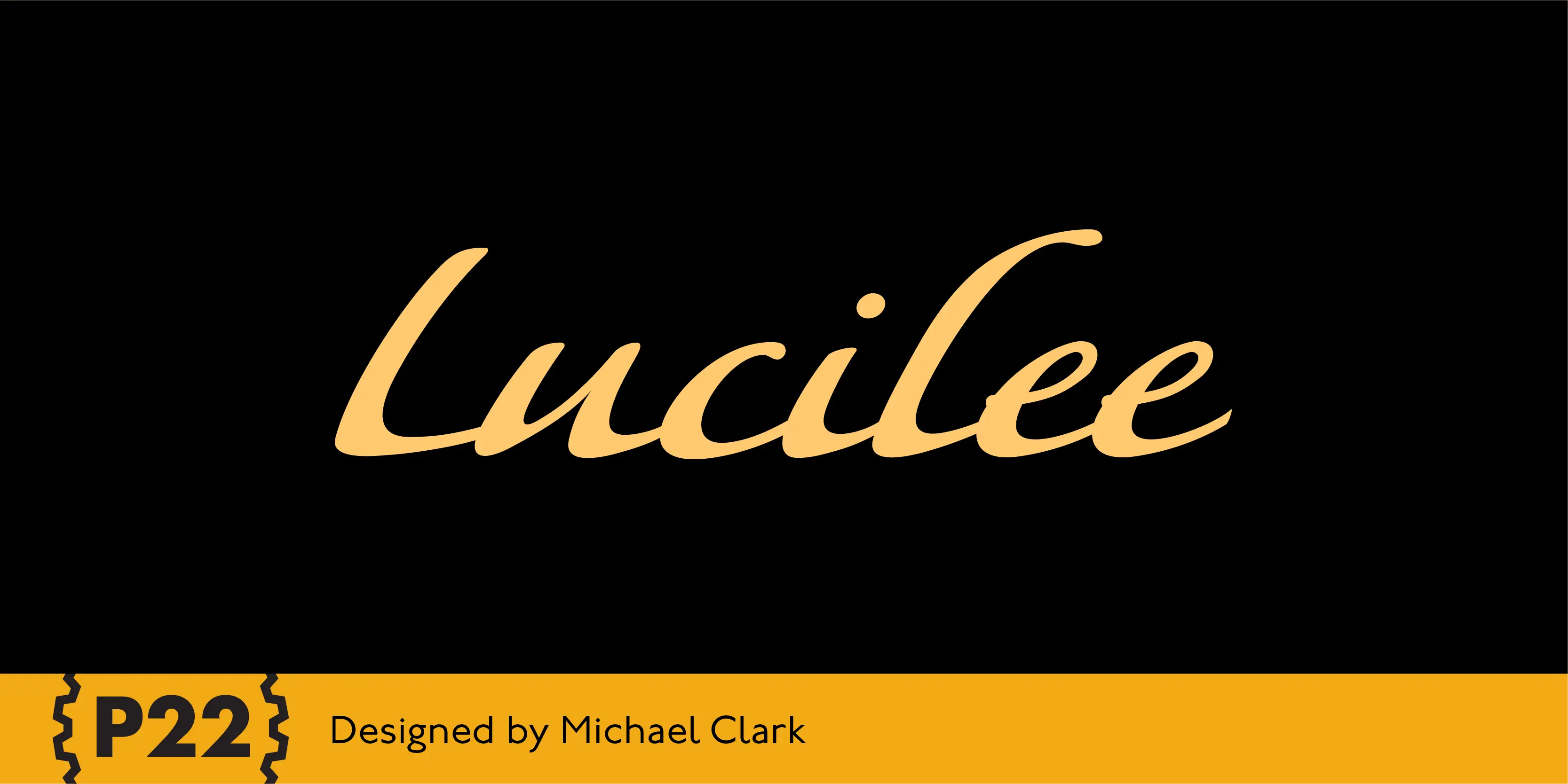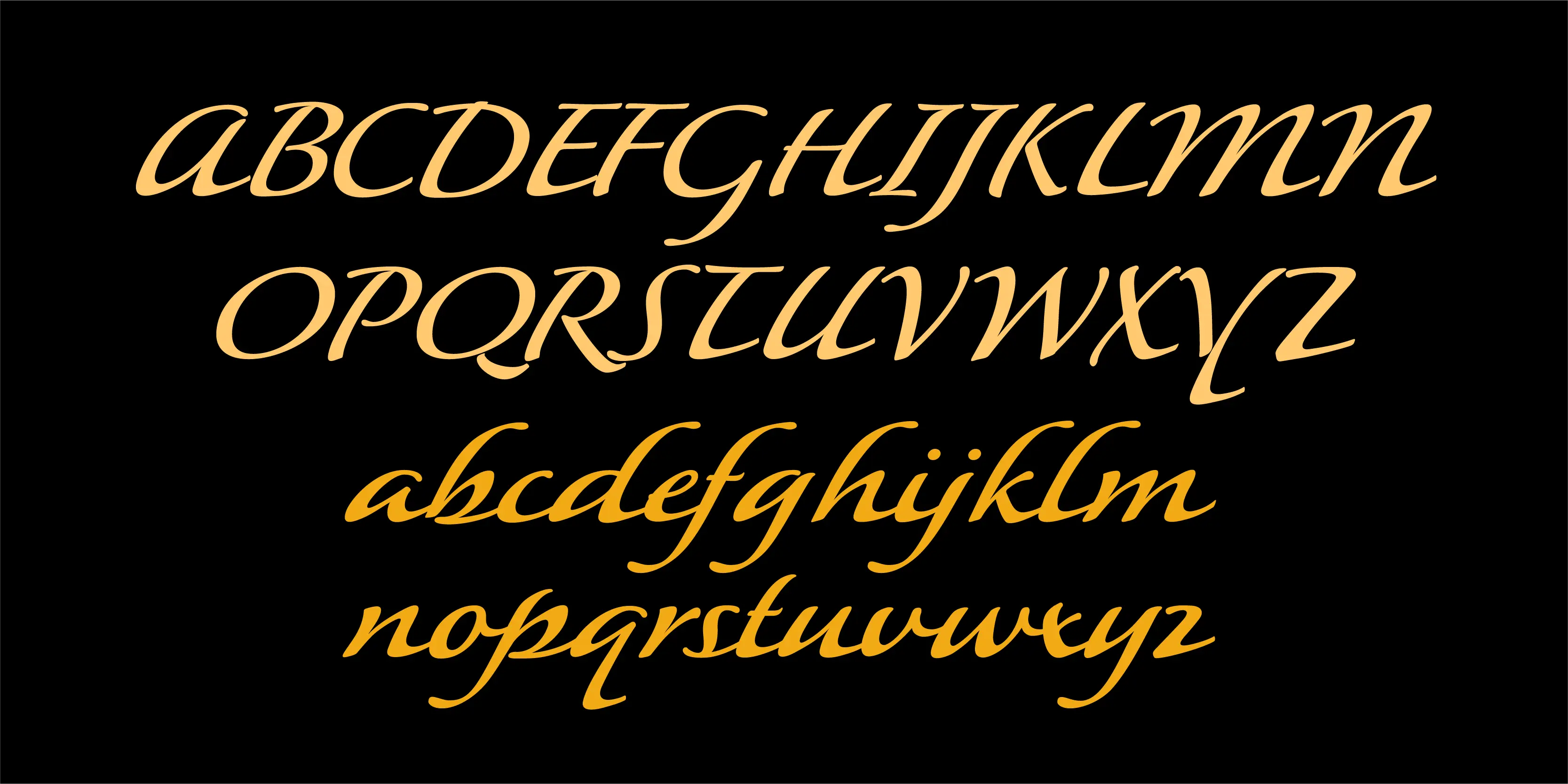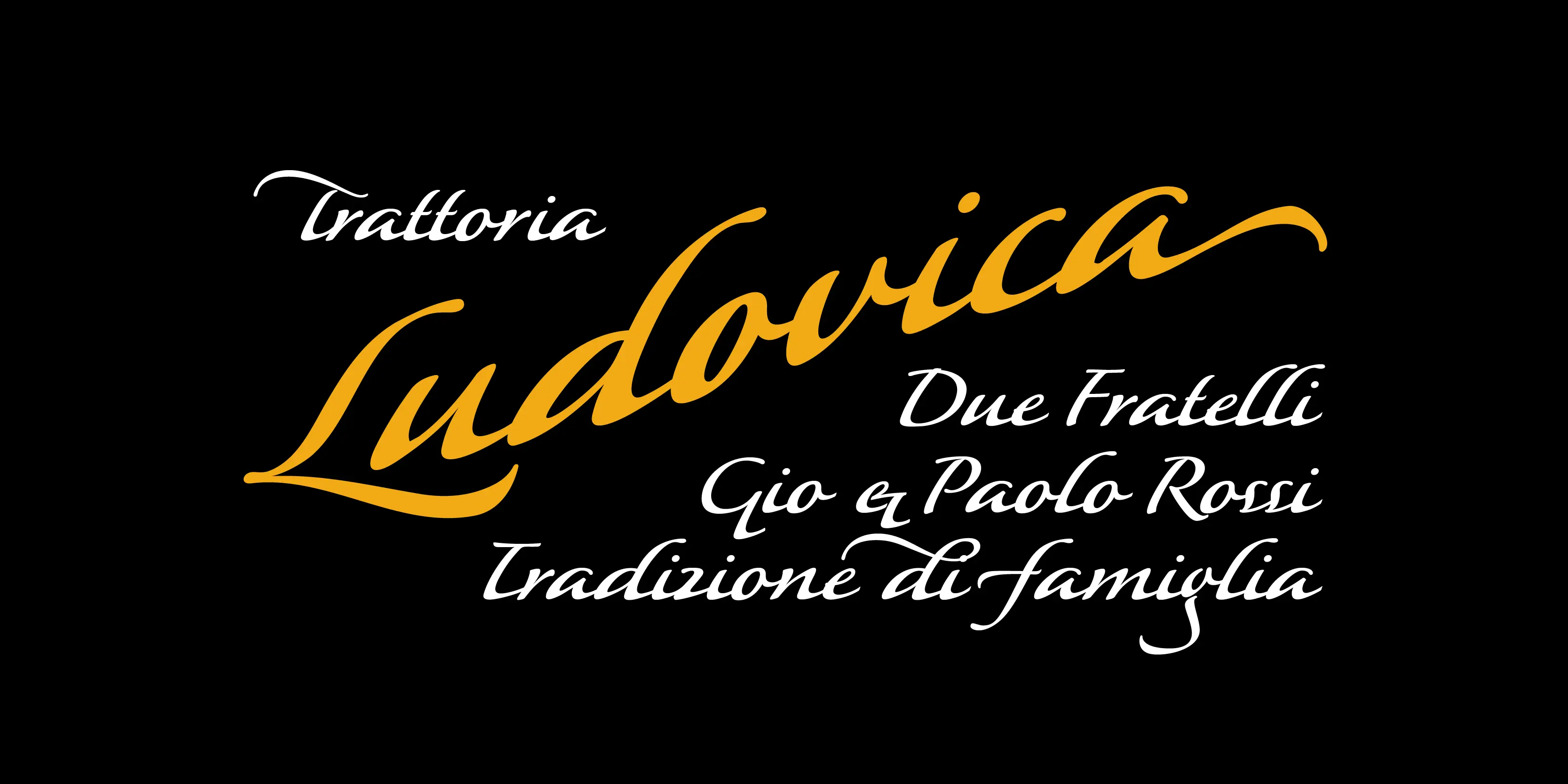
Lucilee Fonts
Lucilee
Lucilee is a full featured, OpenType script font from Michael Clark. It is a sweeping italic with many alternates, including ligatures, beginning and ending swashes, and a full Central European character set. It is a joining script that is fluid and also suitable for titling. Lucilee was designed with packaging in mind, but can be used for a wide variety of uses.
- Common Ligatures
- Discretionary Ligatures
- Ordinal Numerals
- Stylistic Alternates
- Stylistic Sets